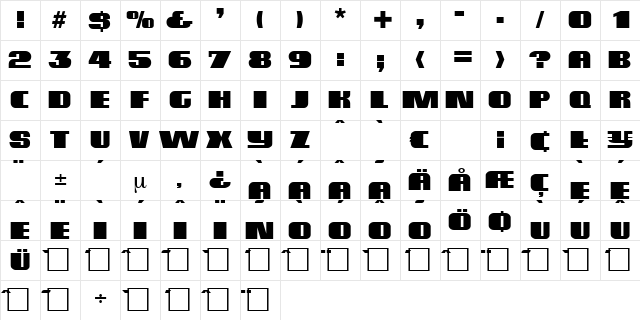
Barracuda Regular
Design Context for Barracuda Typeface
Barracuda is a composed and adaptable typeface that performs quietly and consistently across a wide range of design contexts.